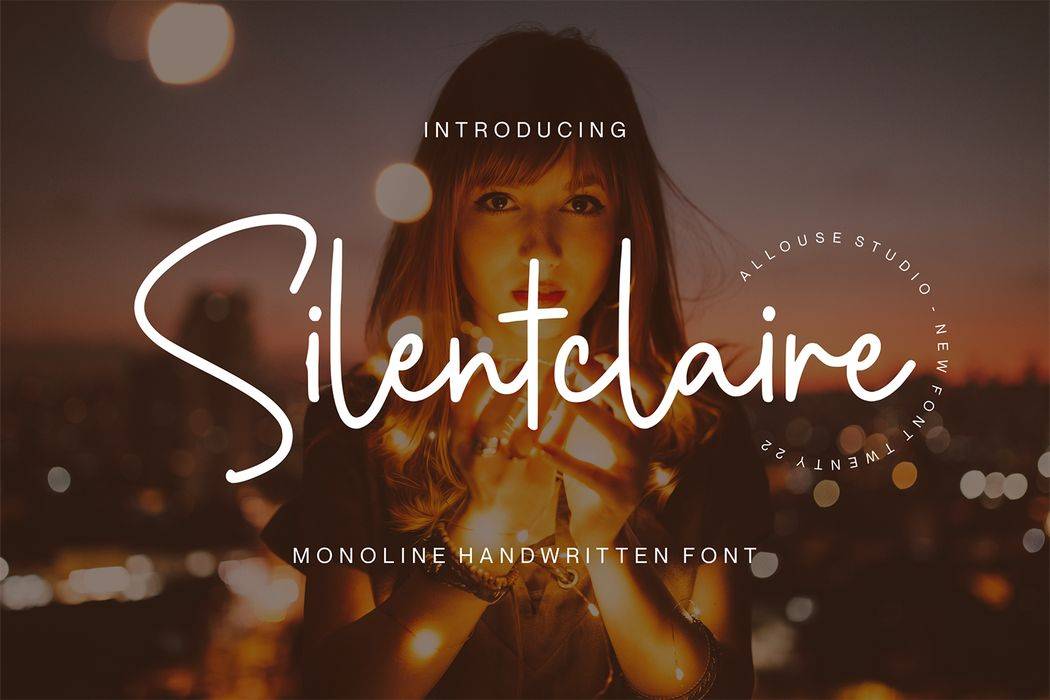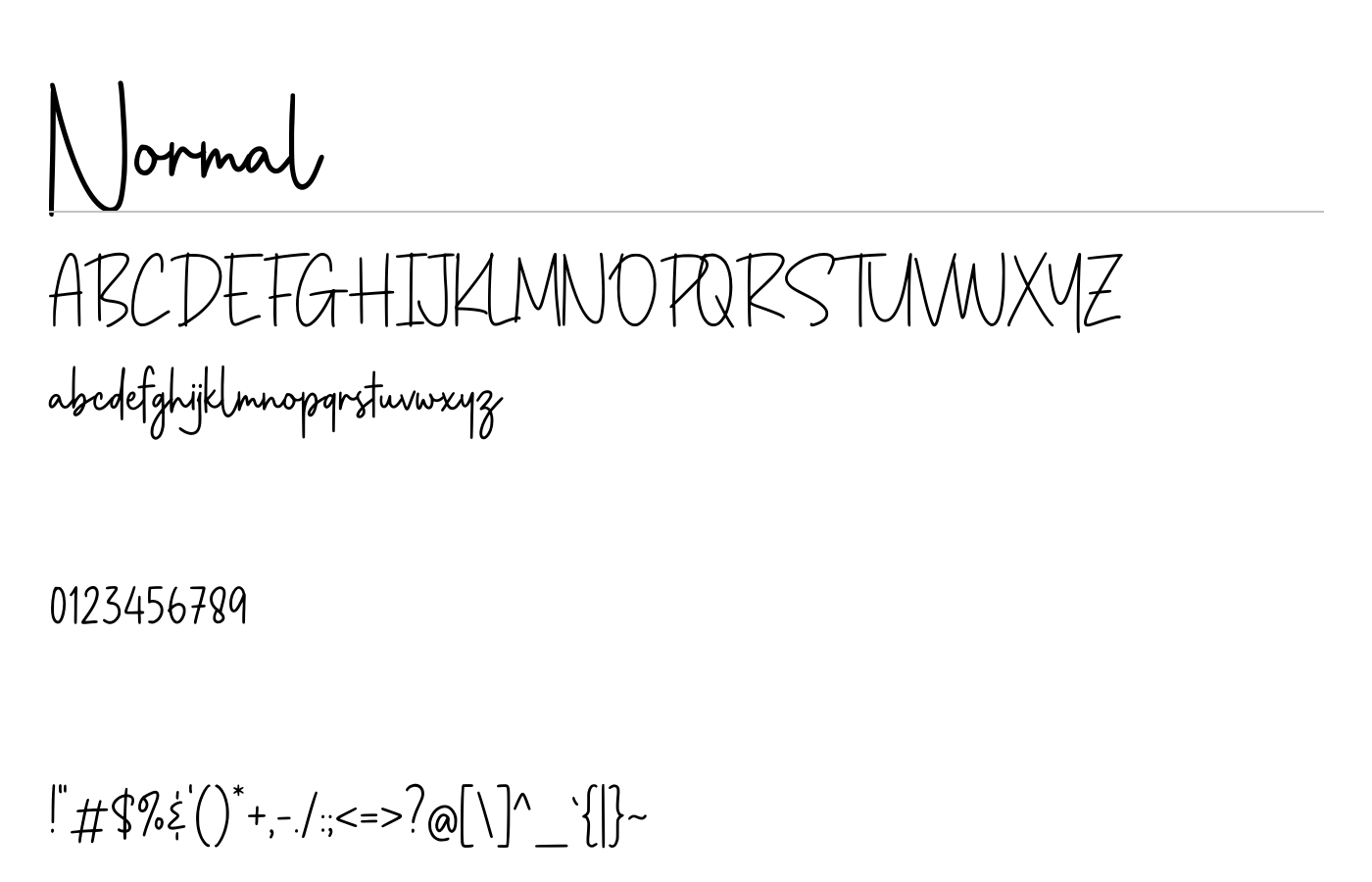
Silentclaire is a casual, handwritten sans serif font characterized by its tall, narrow letterforms and playful, uneven strokes that give it a friendly, approachable feel. Its light weight and airy spacing make it well-suited for informal design projects such as personal branding, creative headlines, or whimsical invitations where an authentic, human touch is desired. This font’s unique, slightly quirky style adds personality without sacrificing readability, making it perfect for designs that want to convey warmth and individuality.
Silentclaire Font
About Silentclaire Font